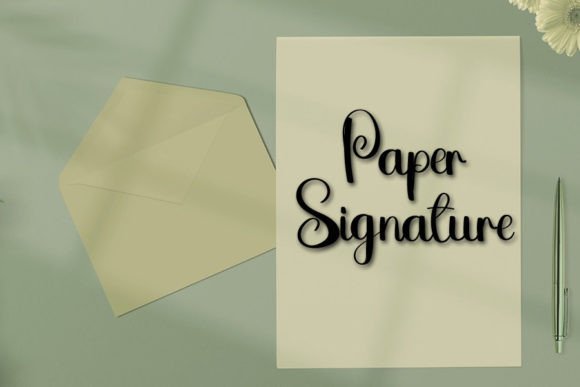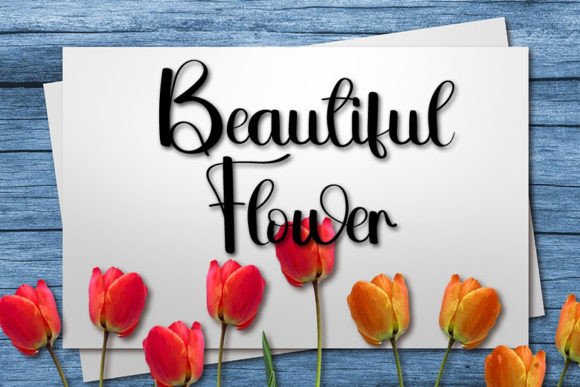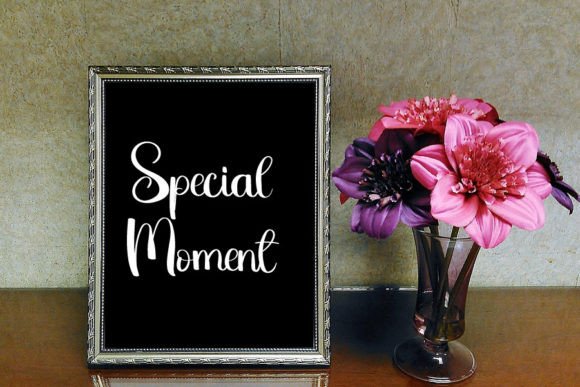
Introduction to Mandala Farmhouse Font Font
Fonts play a crucial role in design, and the Mandala Farmhouse Font font is a typeface that brings both character and versatility to any project. Whether you’re working on a branding project, a website, or a print design, the Mandala Farmhouse Font font offers a unique style that can elevate your work.
Mandala Farmhouse is a sweet and delicate handwritten font.
Dainty and joyful, this font will be ideal for writing wedding invitations, cards, or any other design that may need a romantic, personalized touch .
Key Features of Mandala Farmhouse Font Font
Why Choose Mandala Farmhouse Font Font?
The Mandala Farmhouse Font font is more than just a typeface – it’s a design tool that helps you communicate your message with style and clarity. Its unique character set and versatile design make it suitable for a wide range of applications, from elegant invitations to bold headlines.
With its carefully crafted letterforms and balanced proportions, the Mandala Farmhouse Font font ensures readability and visual appeal across all mediums.
What makes Mandala Farmhouse Font font special?
The Mandala Farmhouse Font font stands out with its unique design, exceptional readability, and versatility across various design applications.